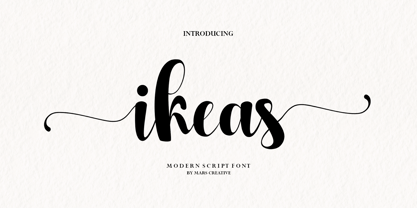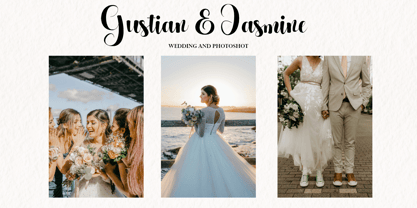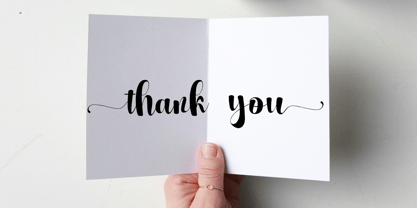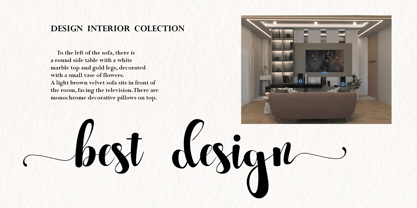
Ikeas Script
by Mars Creative
The Ikeas Script Font Family was designed by Al Muzammil and published by Mars Creative. Ikeas Script contains 1 styles. More about this family
Ikeas is a modern script font that beautifully blends elegant calligraphy with a contemporary twist. Designed to exude femininity, sophistication, and charm, Ikeas is perfect for branding, wedding invitations, logos, packaging, quotes, and a wide range of creative projects.
The font features smooth flowing strokes, balanced boldness, and long, decorative swashes on both ends, offering a dramatic yet readable aesthetic. Its graceful curves and stylish appearance make it ideal for artistic and professional use.
Designers: Al Muzammil
Foundry: Mars Creative